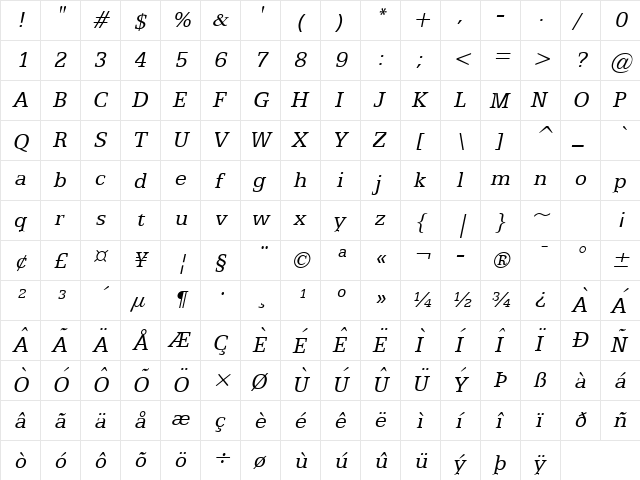
Eggo Italic
Design Context for Eggo Typeface
Eggo takes a measured approach to typography — its balanced proportions and neutral character make it a reliable workhorse for both digital and print work. The slanted form adds forward momentum and visual energy.
Pro Tip: Try Eggo for annotation and caption copy alongside an upright companion — the contrast in angle creates a dynamic but ordered typographic system.